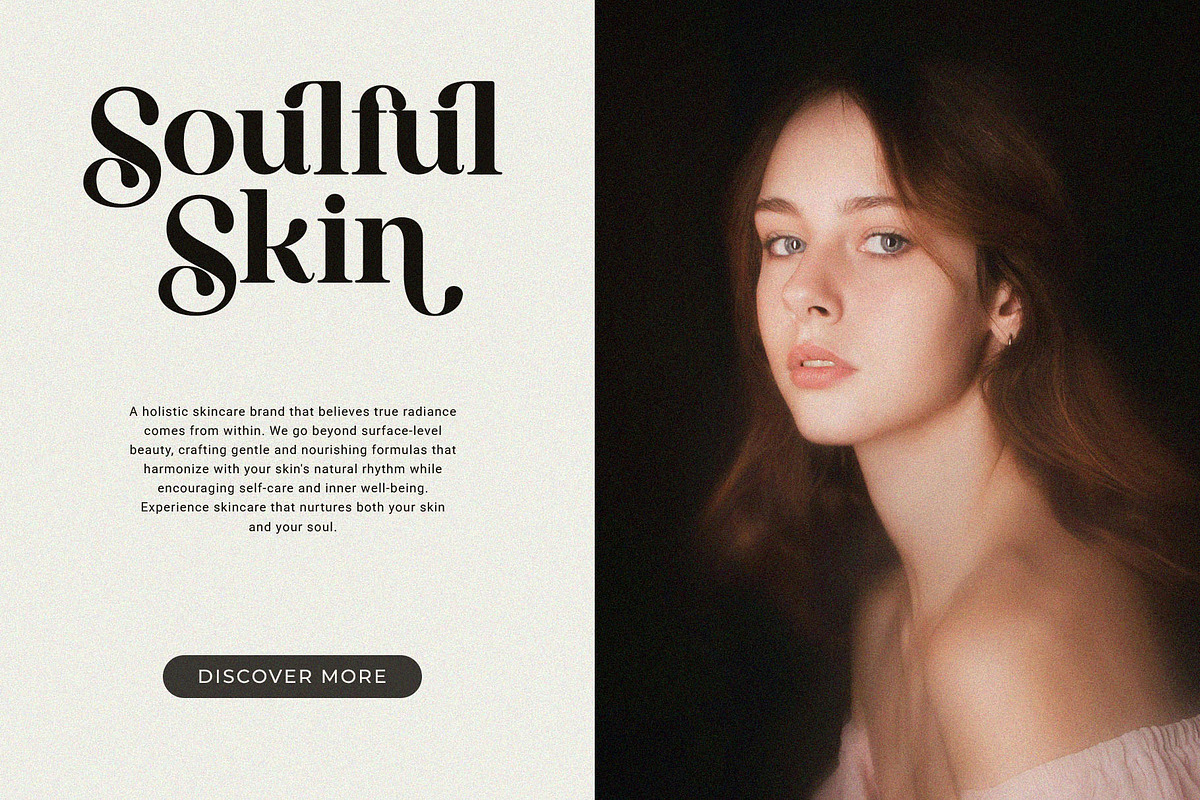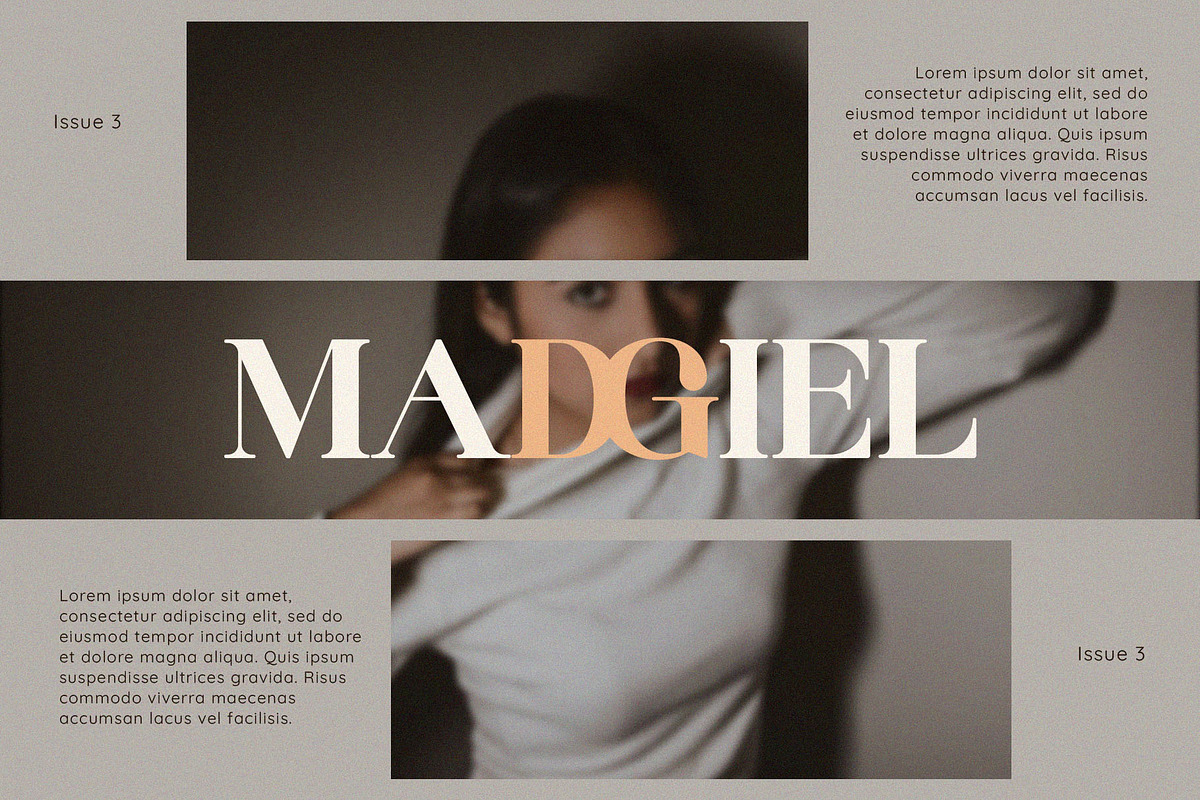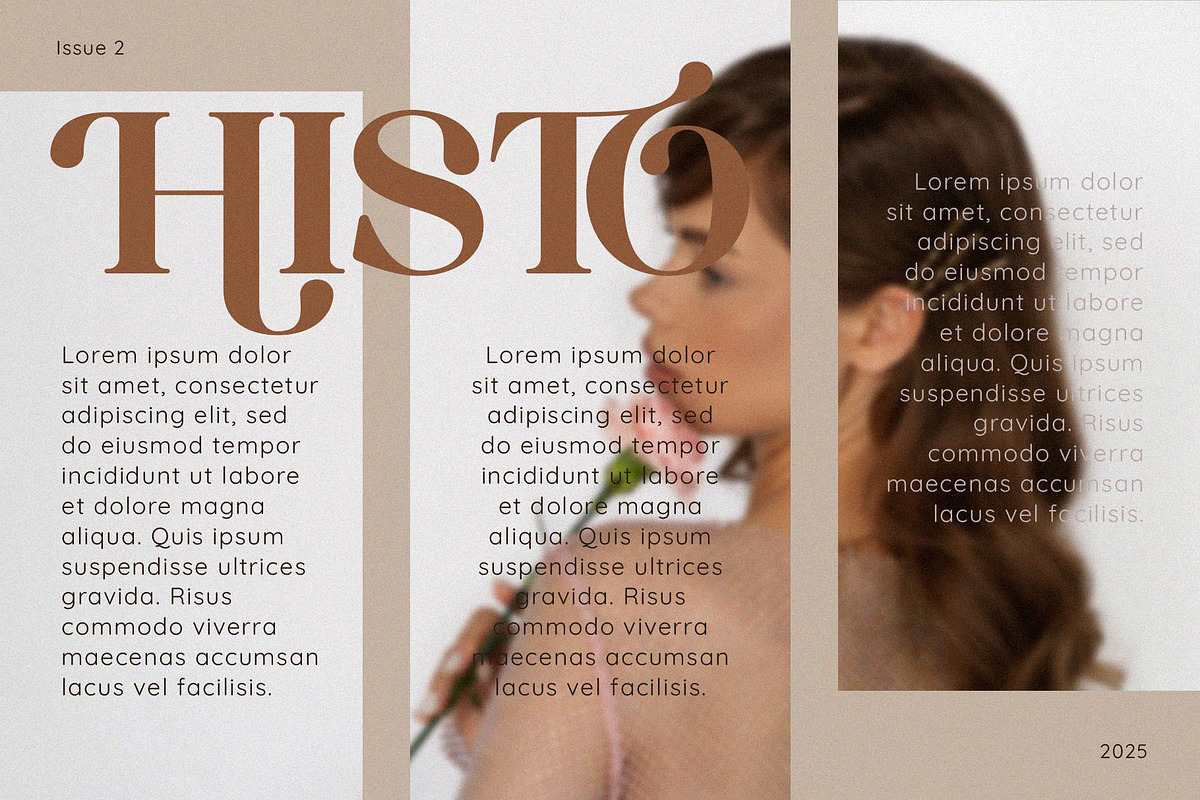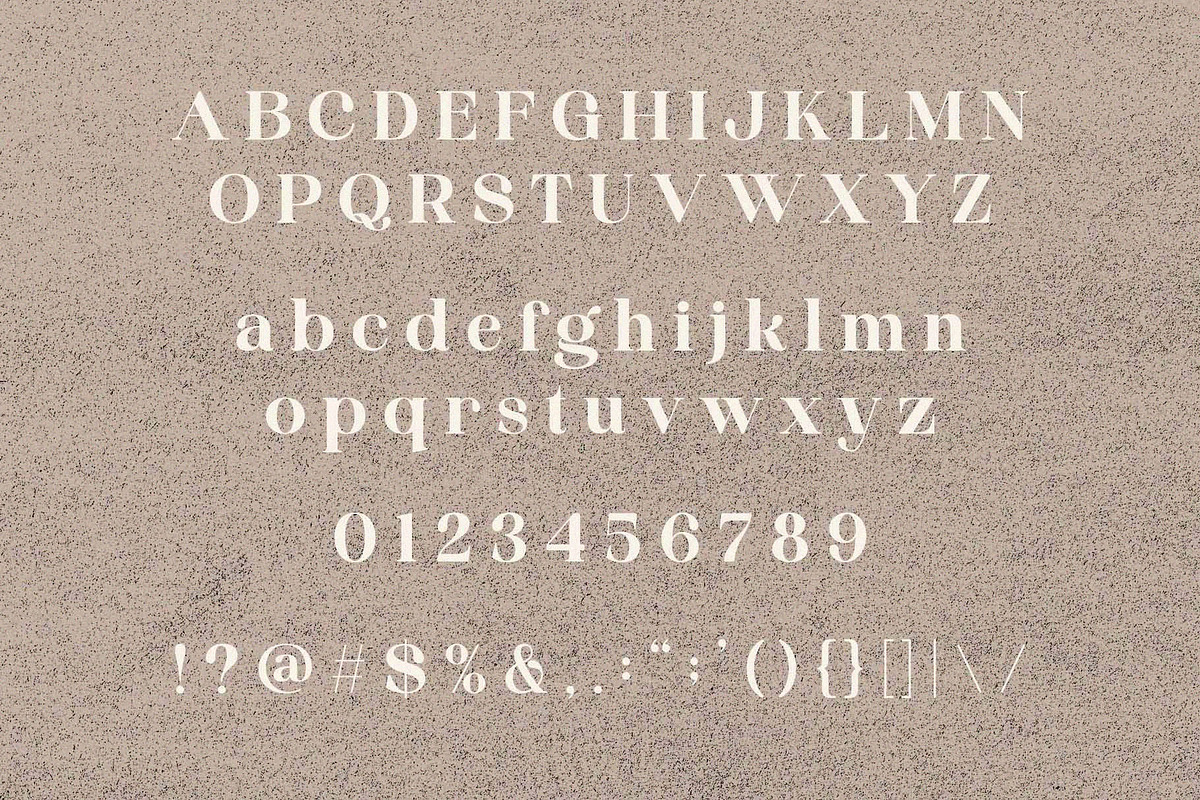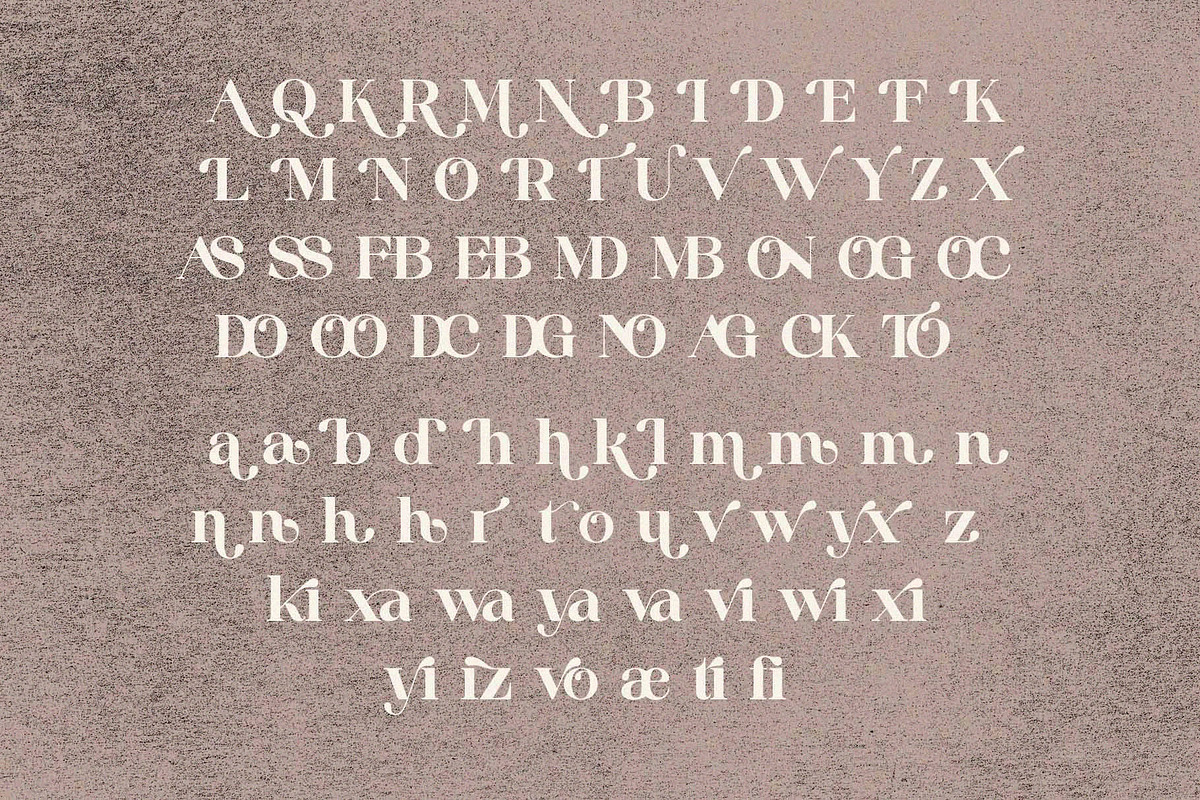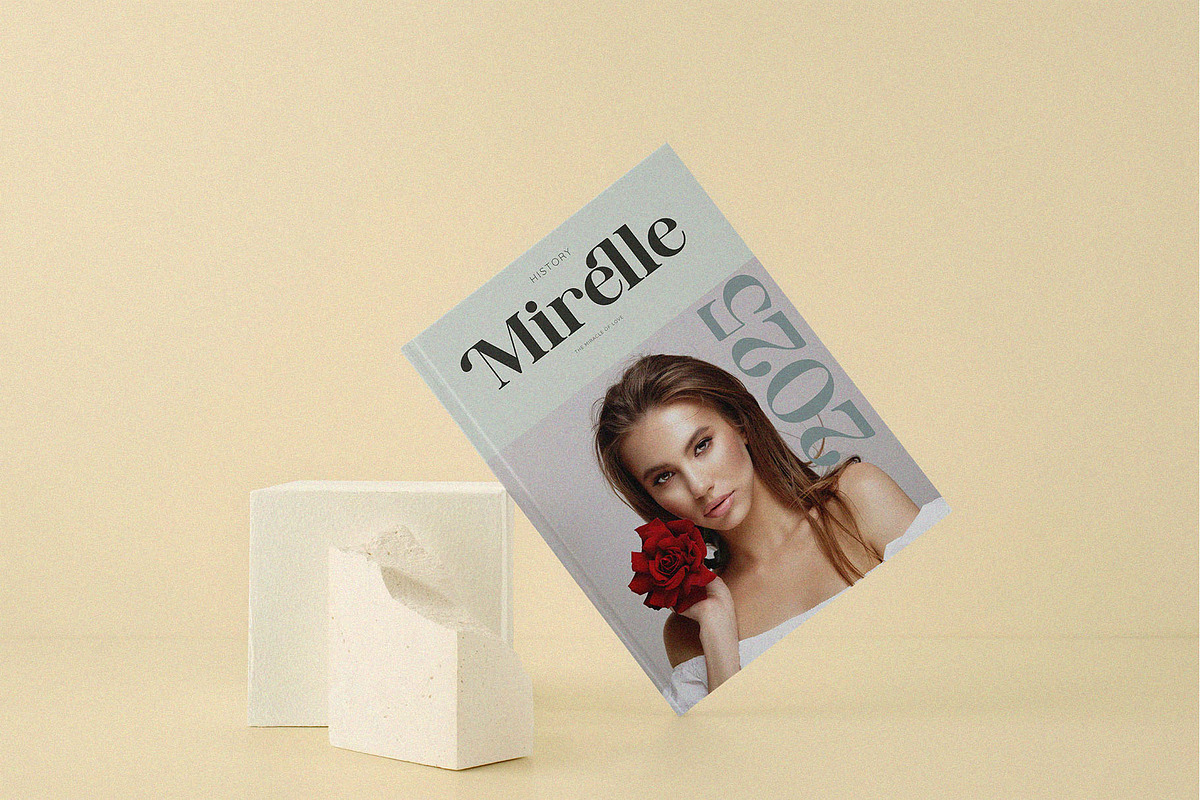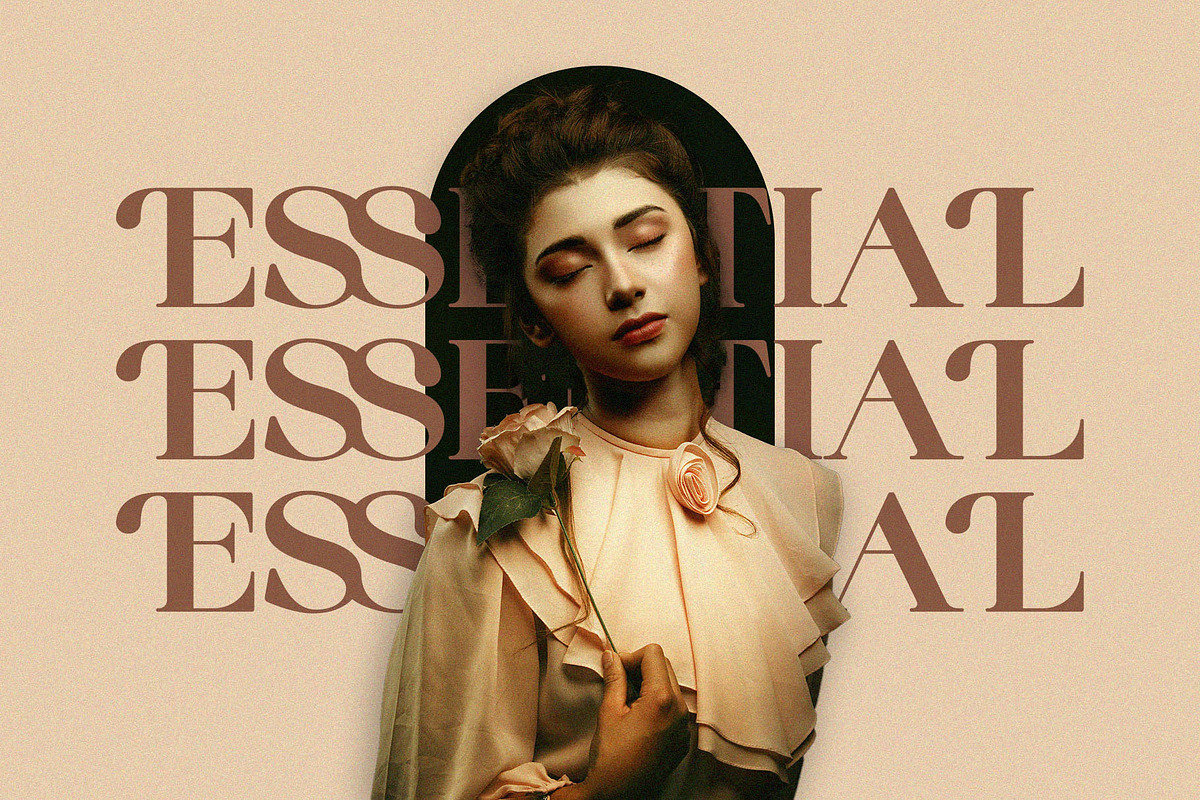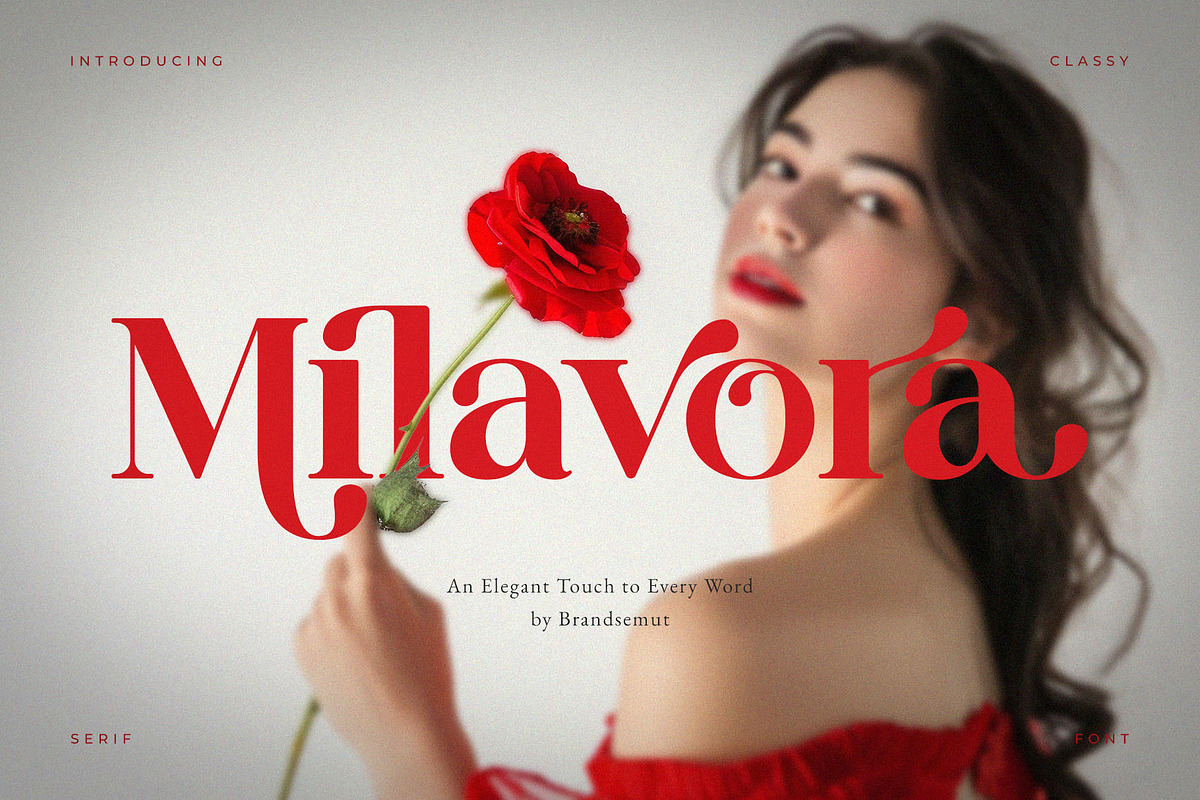
Milavora – Elegant Display Serif
Introducing Milavora Modern Display Serif Font. Milavora is a modern and classy typeface, best used as a display for headings, logos, branding, magazines, product packaging and invitations. Milavora come with clean lines and smooth curves give any project an extra touch of class.